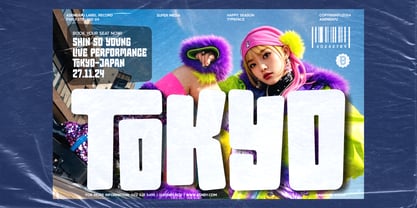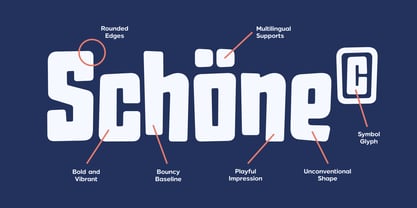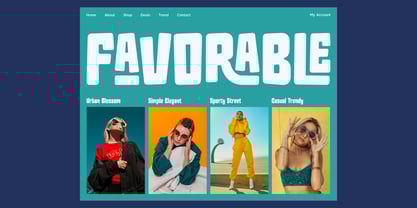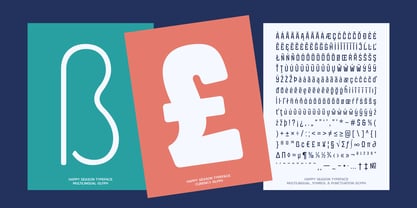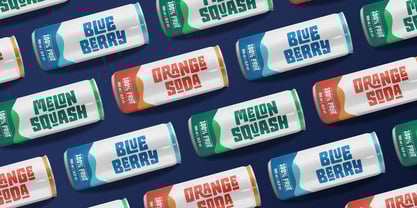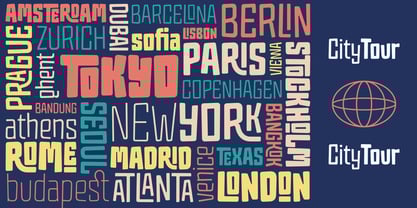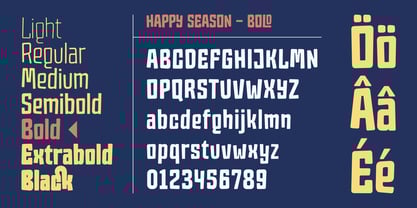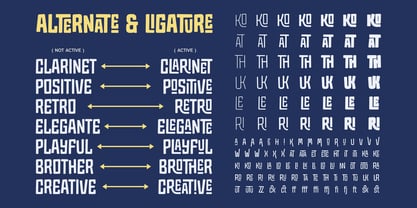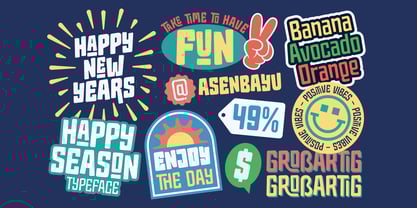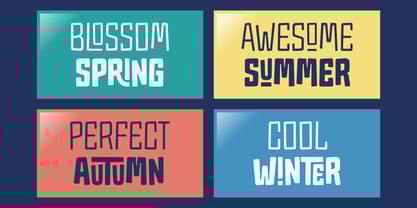
Happy Season
La famille de polices Happy Season a été conçue par Bayu Noor Witarsa et publiée par Asenbayu. Happy Season contient 7 styles et options de package familial. En savoir plus sur cette famille
Happy Season is modern playful sans serif font family consisting of 7 styles. Happy Season font has an energetic, lively design that feels fun & approachable. The rounded edges give a friendly, welcoming look and make the letters feel more casual. This font is suitable for trendy packaging label designs, unique desired logos, headlines, poster designs, fashion and many more.
Font Features:
- 7 Styles Light to Black
- Standard Glyph
- Stylistic Alternate & Ligature
- Numeral & Punctuation
- Multiple Languages Supported